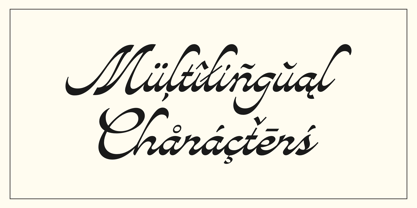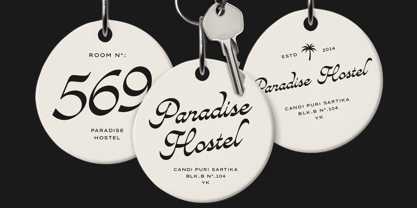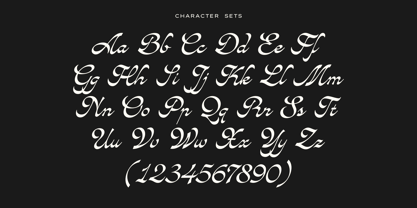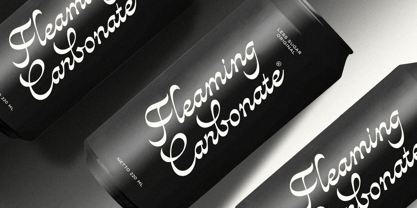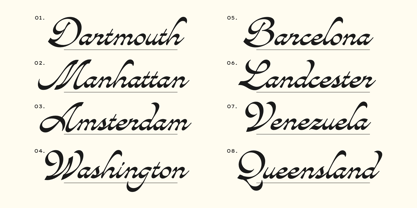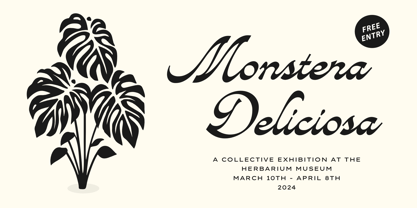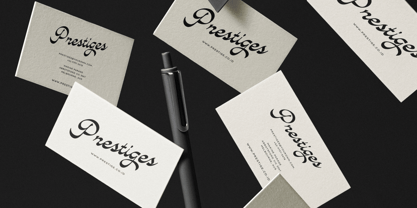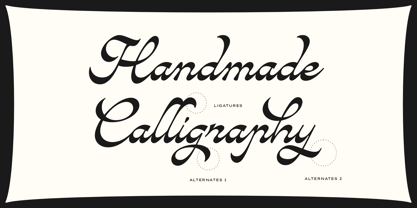
Avantgarde
by Swand Type
The Avantgarde Font Family was designed by Michola Putra Siswandi and published by Swand Type. Avantgarde contains 1 styles. More about this family
Introducing, Avantgarde! A modern and stylish script font.
Included Alternates to add more stylistic looking Avantgarde is a versatile font,
perfect for Headline, Logo design, Clothing Branding, product packaging, magazine headers,
or simply as a stylish text overlay to any background image.